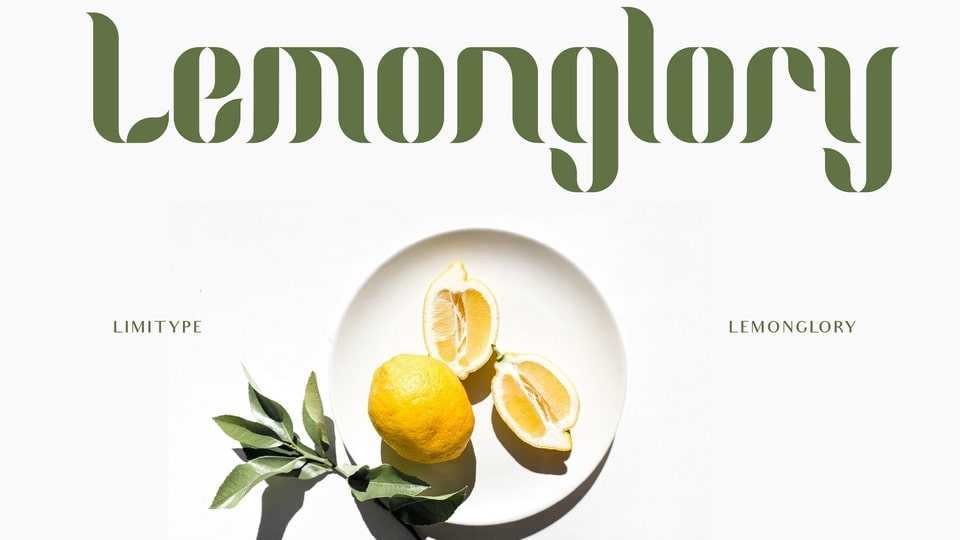
Download Lemonglory font, a modern typeface inspired by the shape of a leaf, with a unique shape. Lemonglory font is suitable for displays, logos, headlines, posters etc.